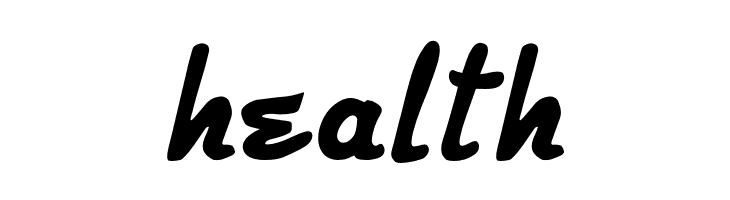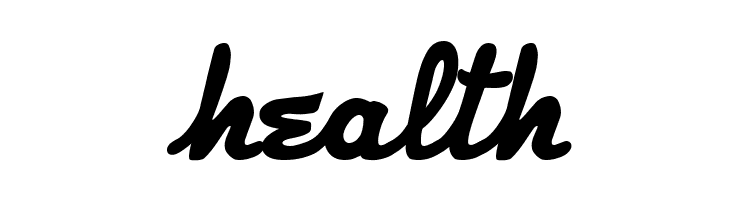
( Pisto Casero - Gilberto Moya Perona - www.pistocasero.com )
A digital, stencil-style font with a retro 8-bit feel.
( Pisto Casero - Gilberto Moya Perona - www.pistocasero.com )
( Projeto Tipo da Fonte - Eduardo Novais - tipodafonte.wordpress.com )
A sophisticated serif font with tall, narrow letterforms and high contrast strokes.
( Zero Thompson - www.facebook.com/Zerografics )
A playful and casual handwritten font with an authentic, personal touch.
( font studio four - www.hellofont.com/fonts/843?a=EL1 )
A bold, geometric font with a modern and structured design.
( font studio four - www.hellofont.com/fonts/843?a=EL1 )
A bold, geometric font with a futuristic, industrial design.
( font studio four - www.hellofont.com/fonts/843?a=EL1 )
A geometric, multi-line font with a modern and bold appearance.
( font studio four - www.hellofont.com/fonts/843?a=EL1 )
A modern, geometric font with a futuristic and structured design.
( Bastien Sozoo - sozoo.fr/ )
A bold, dynamic script font with smooth, flowing characters.
( Bastien Sozoo - sozoo.fr/ )
A bold, cursive script font with a playful and sophisticated style.